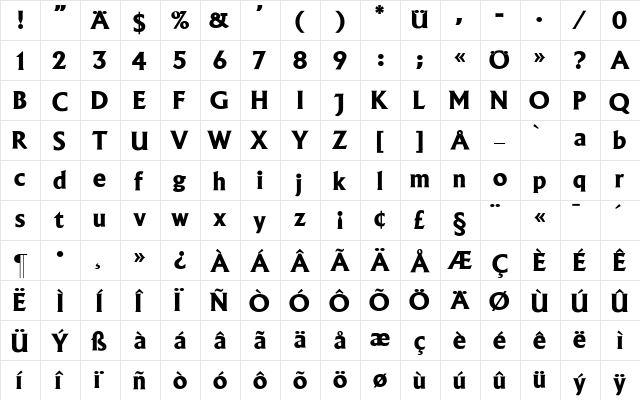
AlbertusSH Bold Font Preview
AlbertusSH Bold
Design Context for AlbertusSH Typeface
AlbertusSH offers clean, dependable letterforms without strong stylistic allegiance, making it a practical choice for designers who need flexibility. Its bold stroke weight gives it real presence on the page.